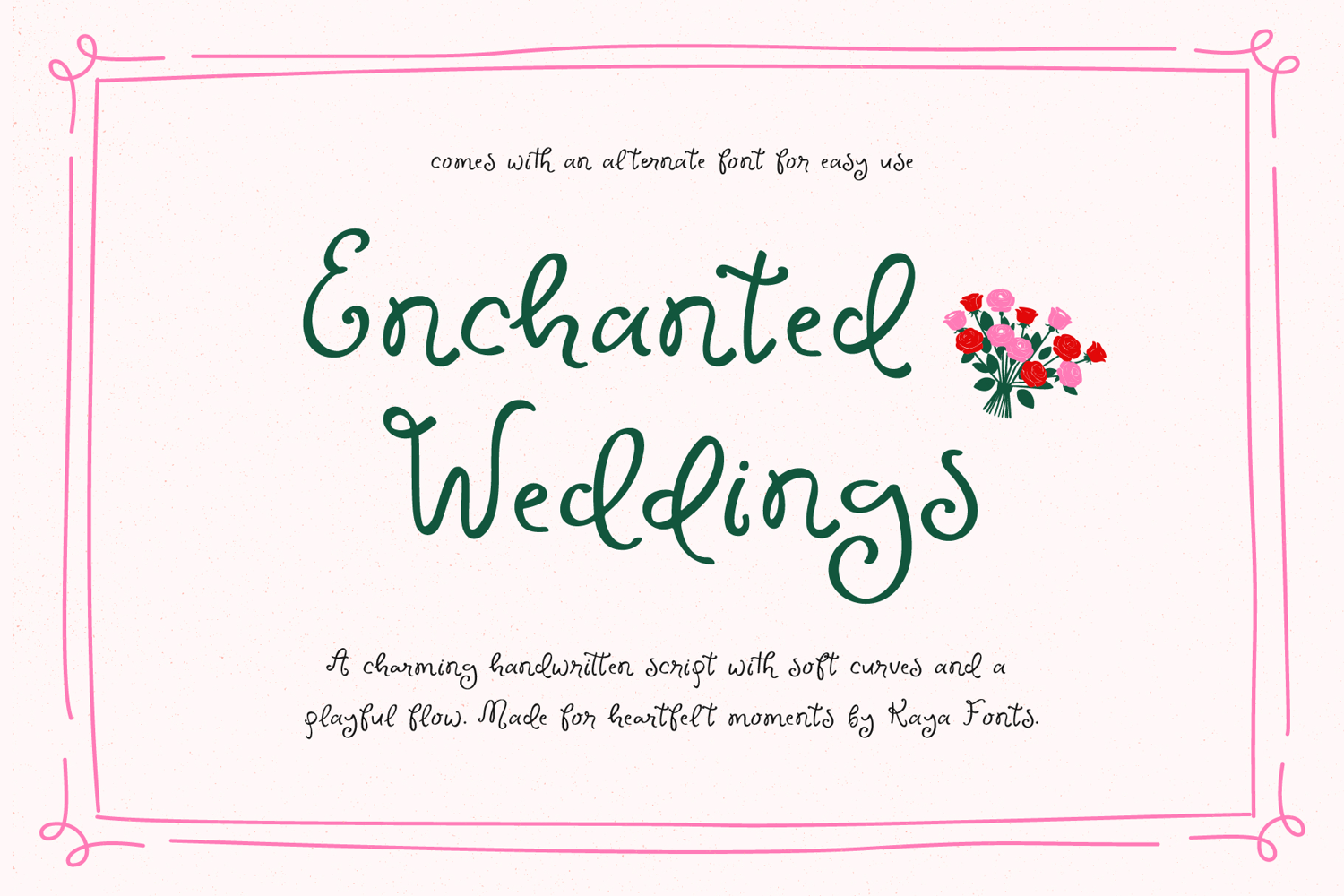
Enchanted Weddings Handwritten Script Font Wedding Font
Enchanted Weddings is a charming handwritten script with soft curves and a playful flow. Perfect for adding a romantic, creative flair to invitations, logos, social media graphics, and more. With every letter, it tells a story full of warmth and imagination.